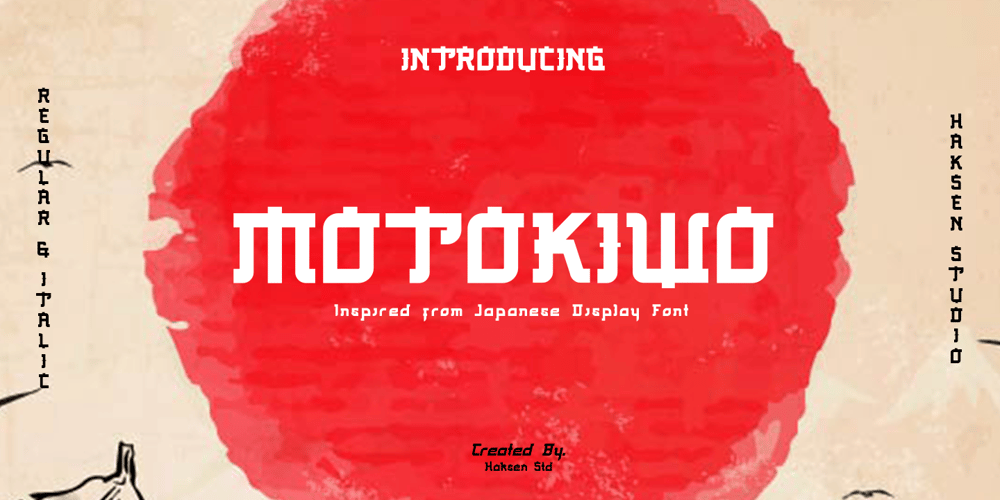
Motokiwo
Motokiwo font
Motokiwo Font Family was designed by Sarwo Edhi Prayitno and published by Haksen. Motokiwo contains 2 styles and family package options. Motokiwo is a display sans with Japanese style unique completely alternates feel nice balanced. Make the design letter looks incredible. Honestly it works perfectly for headlines, logos, posters, packaging, T-shirts and much more.Recommended to use in Adobe Illustrator or Adobe Photoshop with opentype feature.How to access Alternates Character? Open glyphs panel : In Adobe Photoshop choose tool Window >> glyphs In Adobe Illustrator choose tool Type >> glyphs If you have questions, just send me a message and I’m glad to help.Have a great day,Haksen